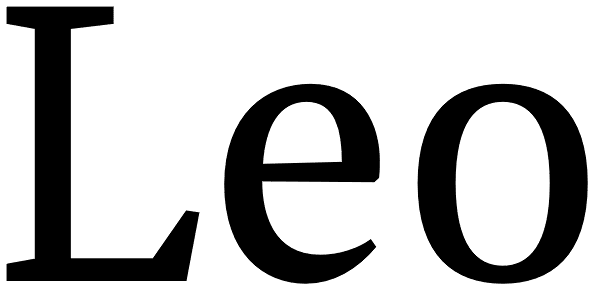
Leo
Leo is an economic magazine and book face meant for use in sizes suitable for immersive reading, with different cuts optimized for different body copy size ranges, like footnotes and legal text. Designed with the explicit intent of relaying...